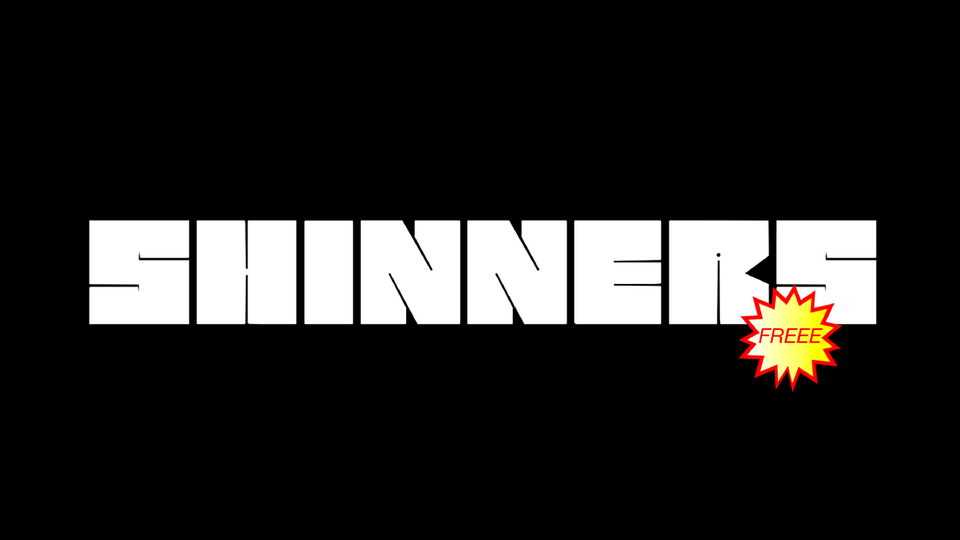
Download Shinners font, a geometric display typeface in futuristic style. Shinners is a multi-functional font, ideal for posters, headlines, logos, web design, brand identity and other eye-catching artworks.
Designer: Pavel Bruev